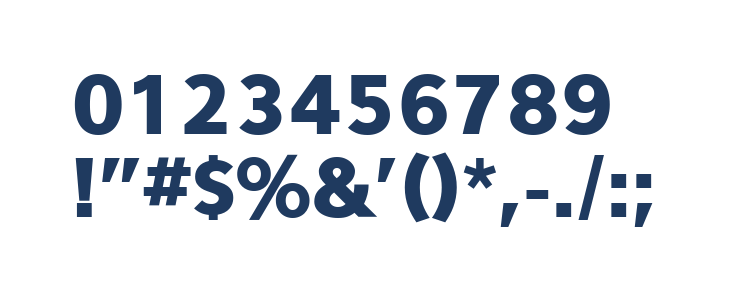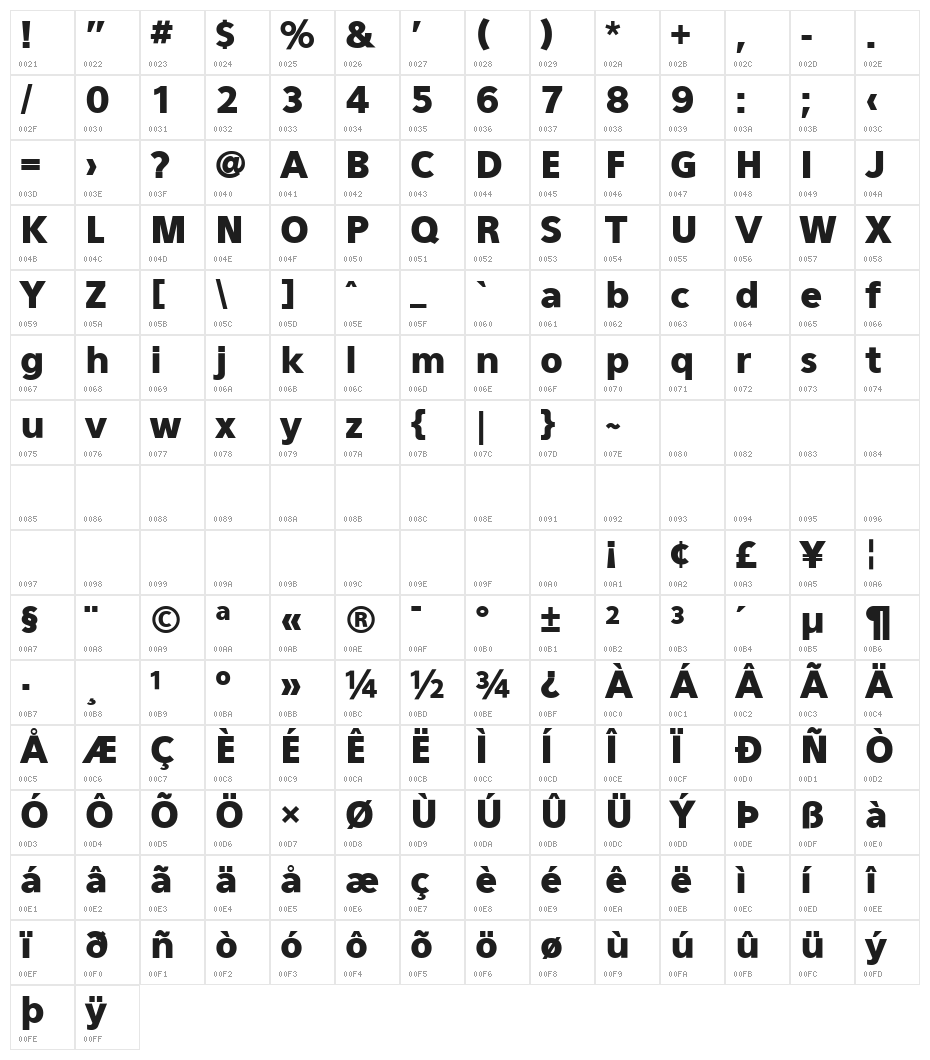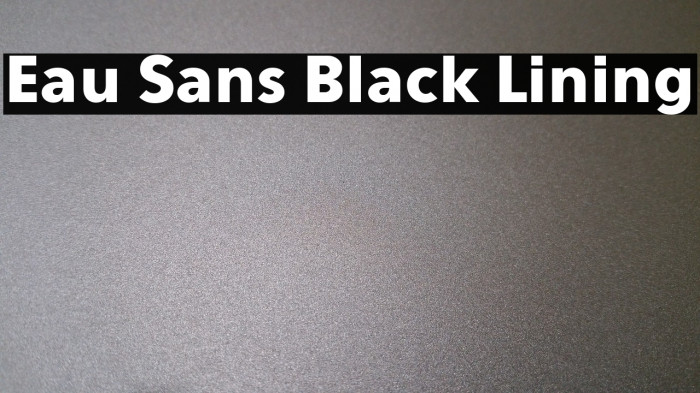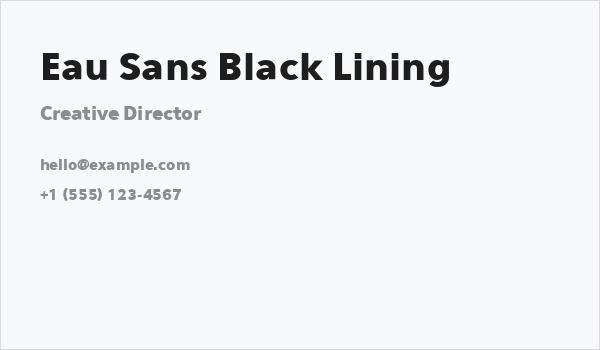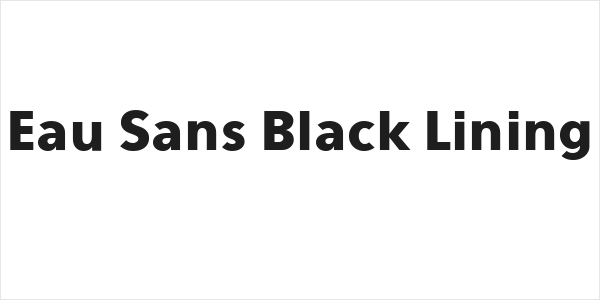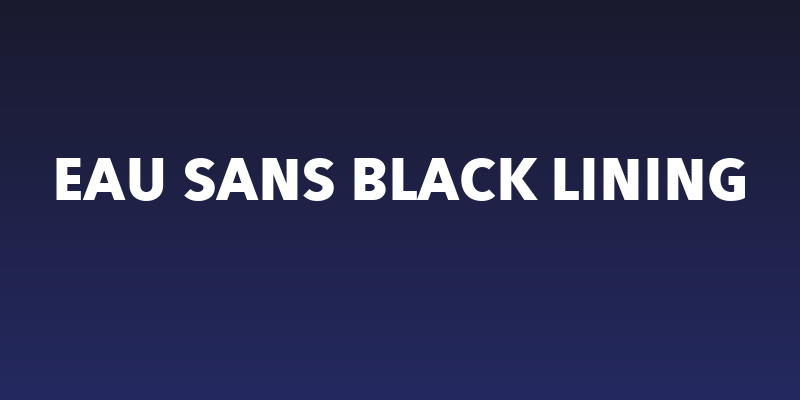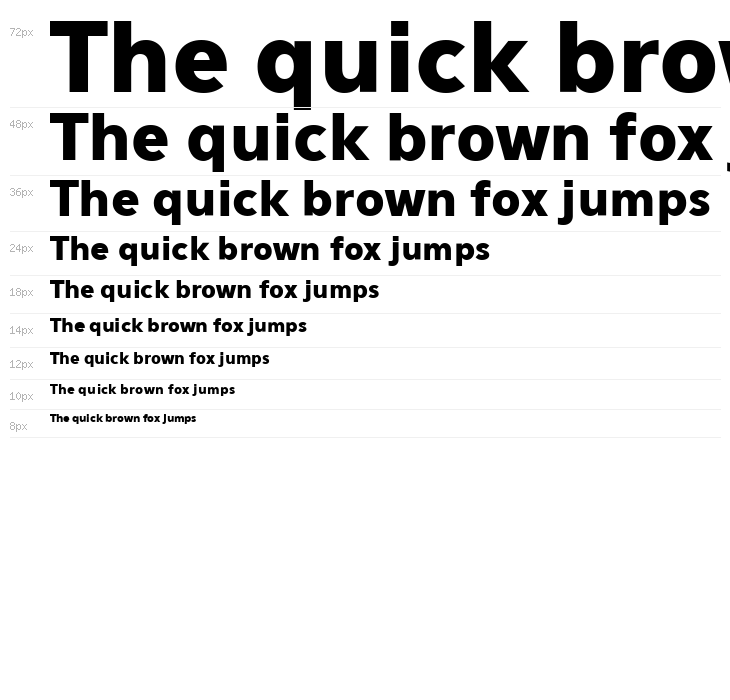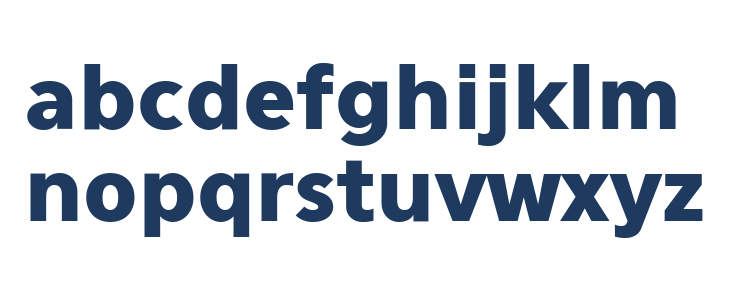
Eau Sans Black Lining Font
Eau Sans Black Lining Description
This font features a bold and modern sans-serif style with a strong presence. The characters are uniform and clean, with a geometric structure that emphasizes clarity and readability. The uppercase and lowercase letters maintain a consistent weight, contributing to a cohesive appearance. The numerals are straightforward and align well with the overall design, making them suitable for various applications. Special characters are included, maintaining the same boldness and clarity as the alphanumeric characters. This font is versatile, suitable for both digital and print media, and can be used effectively in a variety of design projects.